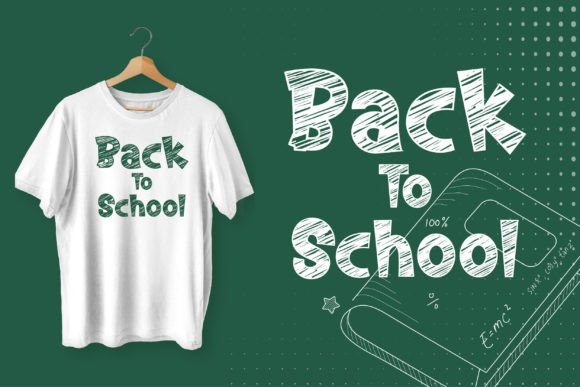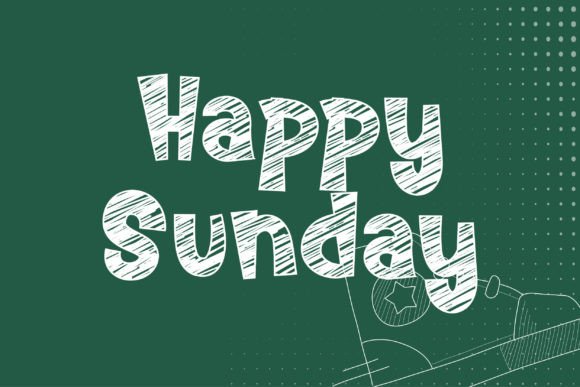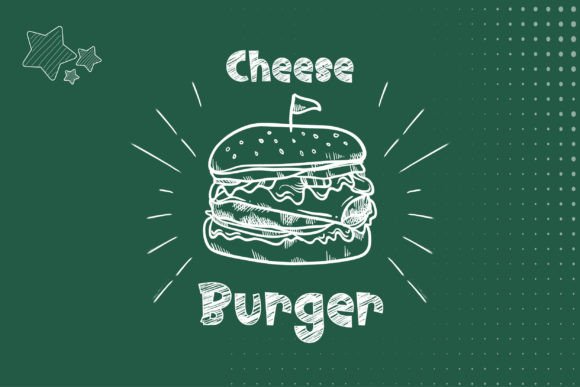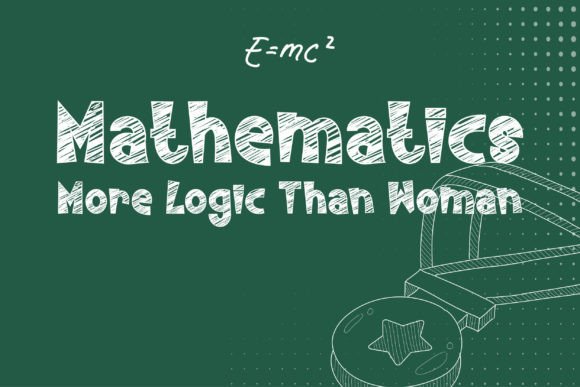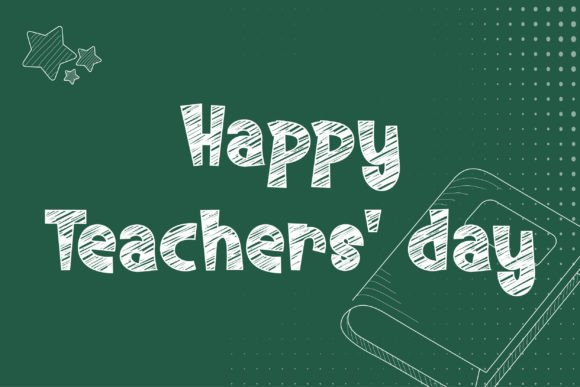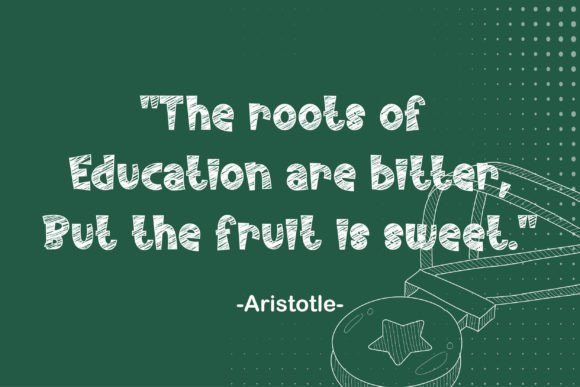
Introduction to Chalk and Board Font
As you sit at your desk, surrounded by scattered papers and empty coffee cups, you suddenly have an epiphany – the perfect design concept for your next project. But, what really sets it apart is the perfect font to match. That’s when you stumble upon Chalk and Board Font, a charmingly simple display font that flawlessly captures the endearing familiarity of a humble chalkboard.
Designers, rejoice! Chalk and Board Font is more than just a design resource – it’s a high-quality tool that brings authenticity to your creative projects. With its transparent background and free download option, you can easily incorporate it into your designs, whether it’s decorating quotes on a chalkboard background or enhancing educational materials.
Whether you’re a seasoned designer or just starting out, Chalk and Board Font is a valuable addition to your design arsenal. Its distinctive style and realism are sure to captivate your audience and leave a lasting impression.
Key Features of Chalk and Board Font
- High-quality design for a creative project, with a unique, hand-drawn style.
- Comes with a transparent background, allowing for easy customization and integration into various designs.
- Perfect for creating a distressed, vintage look in your design, adding a unique touch to your creative project.
- Easy to use and edit, with a simple, yet elegant design that can be customized to fit any design style.
Honest Review: Chalk and Board Font
I recently came across the Chalk and Board Font and was excited to try it out for my next creative project. As a designer, I’m always on the lookout for high-quality design resources that can elevate my work. And let me tell you, this font did not disappoint!
Here’s what I loved about the Chalk and Board Font: ✨
- Unique and charming design that’s perfect for creating a nostalgic feel
- Transparent background, allowing for seamless integration into any design project
However, I did encounter a few limitations: ⚠️
- Not suitable for large-scale text, as it can become difficult to read
- Not as versatile as some other fonts, but still a great choice for specific creative projects
Overall, I’m thoroughly impressed with the Chalk and Board Font. It’s a great design resource that’s perfect for designers who want to add a touch of whimsy to their work. While it may have some limitations, it’s a high-quality font that’s definitely worth considering for your next project.
Introduction to Chalk and Board Font
Chalk and Board Font is a unique and creative design resource that offers a high-quality, free download for designers and artists. This font is perfect for creating a nostalgic and educational feel in your projects.
Designing with Chalk and Board Font
To get the most out of Chalk and Board Font, be sure to pair it with a transparent background to create a clean and modern look. You can also experiment with different font sizes and styles to create a unique and eye-catching design.
Common Use Cases for Chalk and Board Font
Chalk and Board Font is perfect for creating educational materials, such as worksheets, quizzes, and presentations. It’s also great for creating custom graphics, logos, and other designs that require a nostalgic and educational feel.